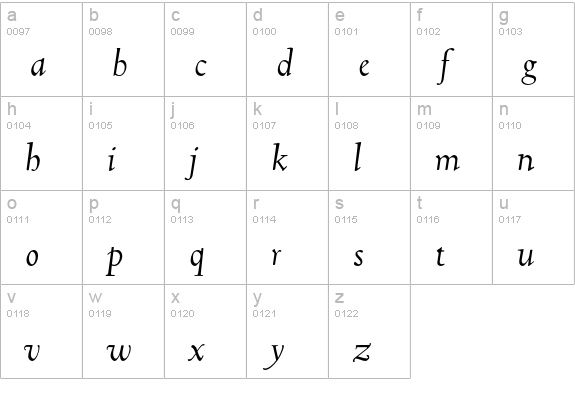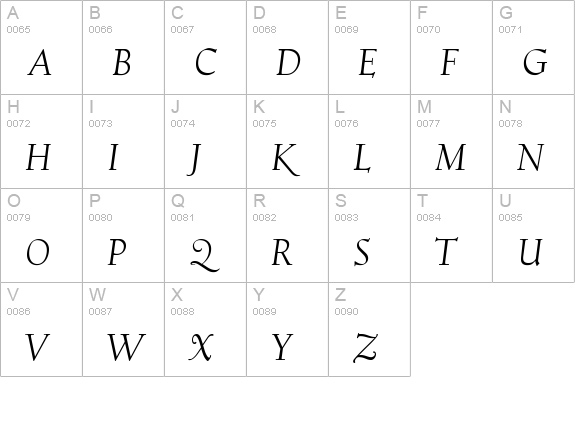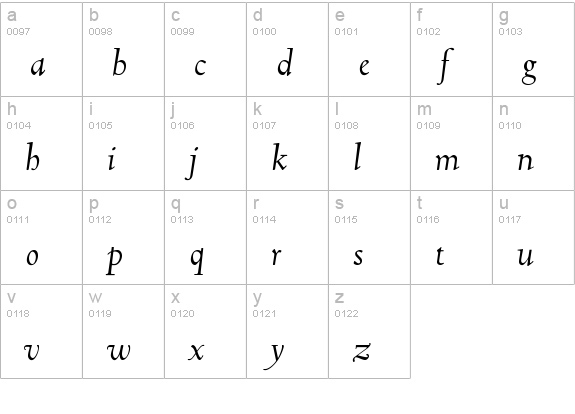
Truesdell Std Italic Font Details
Truesdell Std Italic is a distinctive, italic variant in the Truesdell typeface family \xE2\x80\x94 well suited to design and typography projects.
Truesdell Std Italic font is a stunningly elegant typeface that exudes sophistication and finesse. Its flowing, slanted strokes give it a graceful and dynamic appearance, making it the perfect choice for adding a touch of elegance and sophistication to any design project. This beautiful font features a unique combination of sharp edges and gentle curves, creating a harmonious balance that is visually appealing. Its italic style adds a touch of stylish flair, making it ideal for projects that require a modern and contemporary look. Truesdell Std Italic font is not only aesthetically pleasing, but it is also highly versatile. Its legibility makes it suitable for a wide range of applications, including headlines, logos, posters, and branding materials. Whether you are designing for print or digital, this font will make your text stand out and captivate your audience. One of the best things about Truesdell Std Italic font is that it is freely available to download at FontsMarket.com. This means that you can easily access and use this font without any cost, making it a valuable asset for designers on a budget. It is rare to find such a high-quality font that is available for free, so take advantage of this opportunity to enhance your designs with the elegance and sophistication of Truesdell Std Italic font. In conclusion, Truesdell Std Italic font is a visually stunning and versatile typeface that adds a touch of elegance and sophistication to any design project. Its freely available download at FontsMarket.com makes it an invaluable resource for designers seeking high-quality fonts without breaking the bank. Elevate your designs with the timeless beauty of Truesdell Std Italic font and leave a lasting impression on your audience.